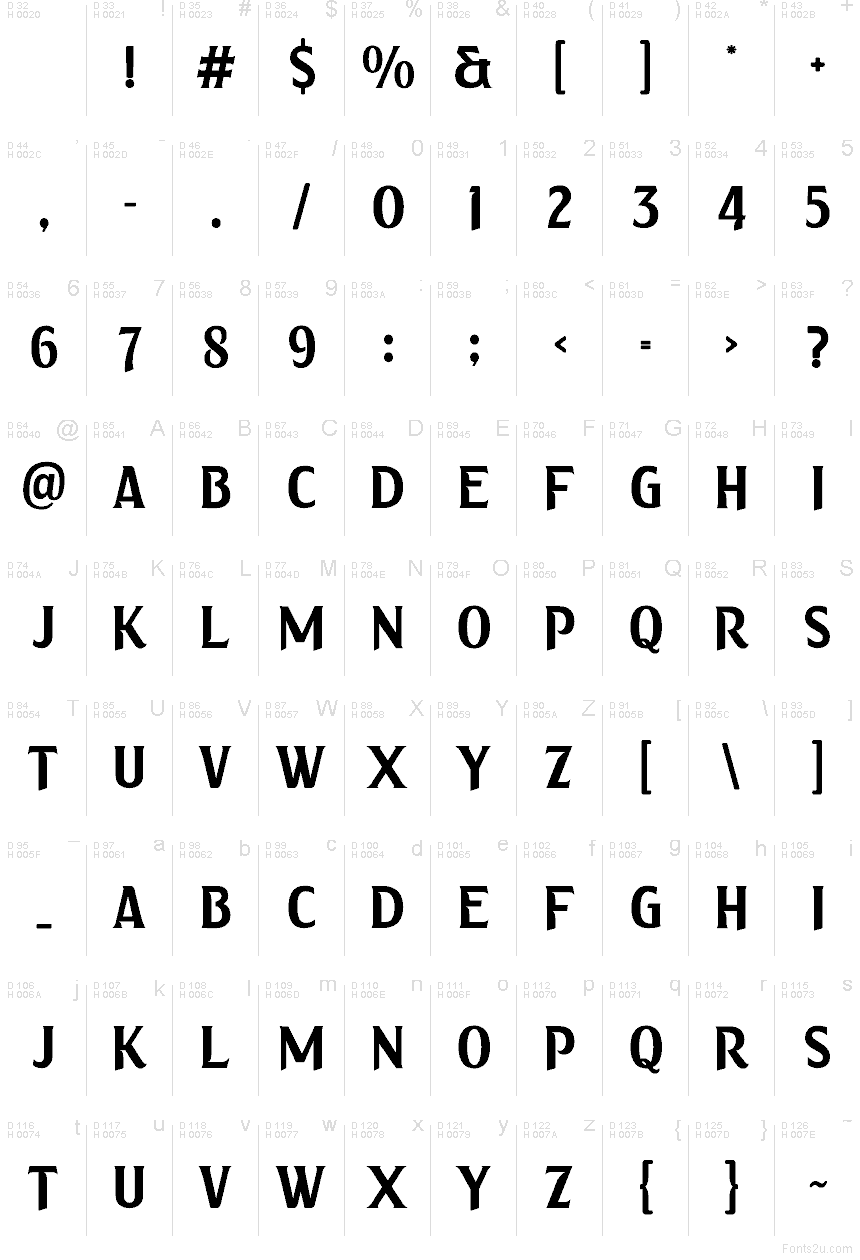
Catalunya Alternates, by Trequartista Studio, is a free Roman display font with the flavor of engraved capitals. The letters pair sharp wedge-like finishing with dramatic thick-thin contrast, giving the font a stately, classical pull while still feeling brisk rather than ceremonial.
It fits branding for wine labels, boutique packaging, cultural posters, book covers, and title cards where a more literary voice helps the message land. As a free font, it also suits monograms, short headlines, and mastheads, because those sculpted caps carry a lot of presence without needing extra ornament.